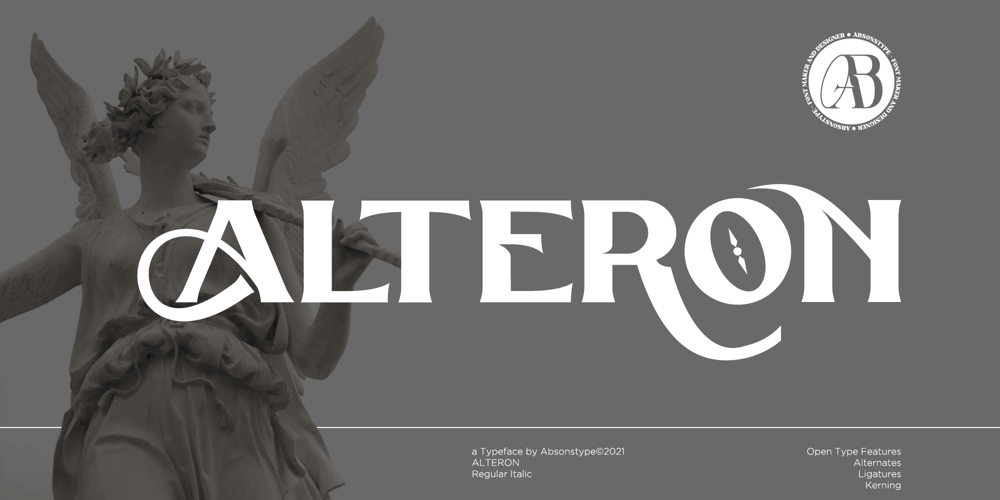
Alteron
Alteron font
Alteron Font Family was designed by Edhi Prayitno and published by Absonstype. Alteron contains 2 styles and family package options. ALTERON is the classic display serif style with uppercase and lowercase look feel nice balanced. Provide alternates and ligatures font in variant style make the design letter looks nice. Honestly it works perfectly for headlines, logos, posters, packaging, T-shirts and much more.Recommended to use in Adobe Illustrator or Adobe Photoshop with opentype feature.Ligatures feature is default setting in Adobe Illustrator or Adobe Photoshop in Uppercase character. So when you want not to use the ligatures.Open glyphs panel : In Adobe Photoshop choose tool Window >> Character and then please click fi symbol In Adobe Illustrator choose tool Window >> Type >> Open Type and then please click fi symbol How to access Alternates Character?Open glyphs panel : In Adobe Photoshop choose tool Window >> glyphs In Adobe Illustrator choose tool Type >> glyphs If you have questions, just send me a message and I’m glad to help.Have a great day,Absonstype